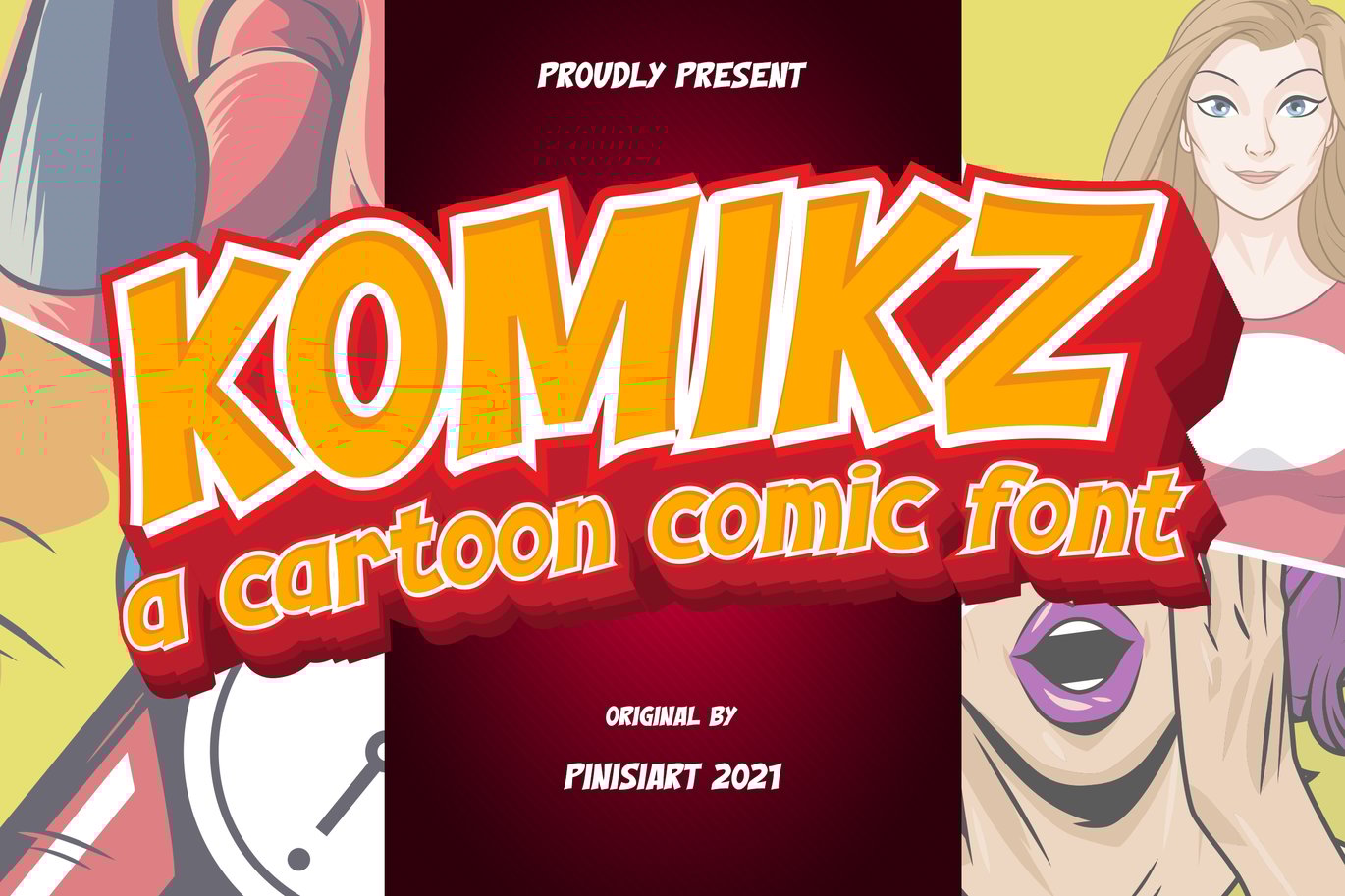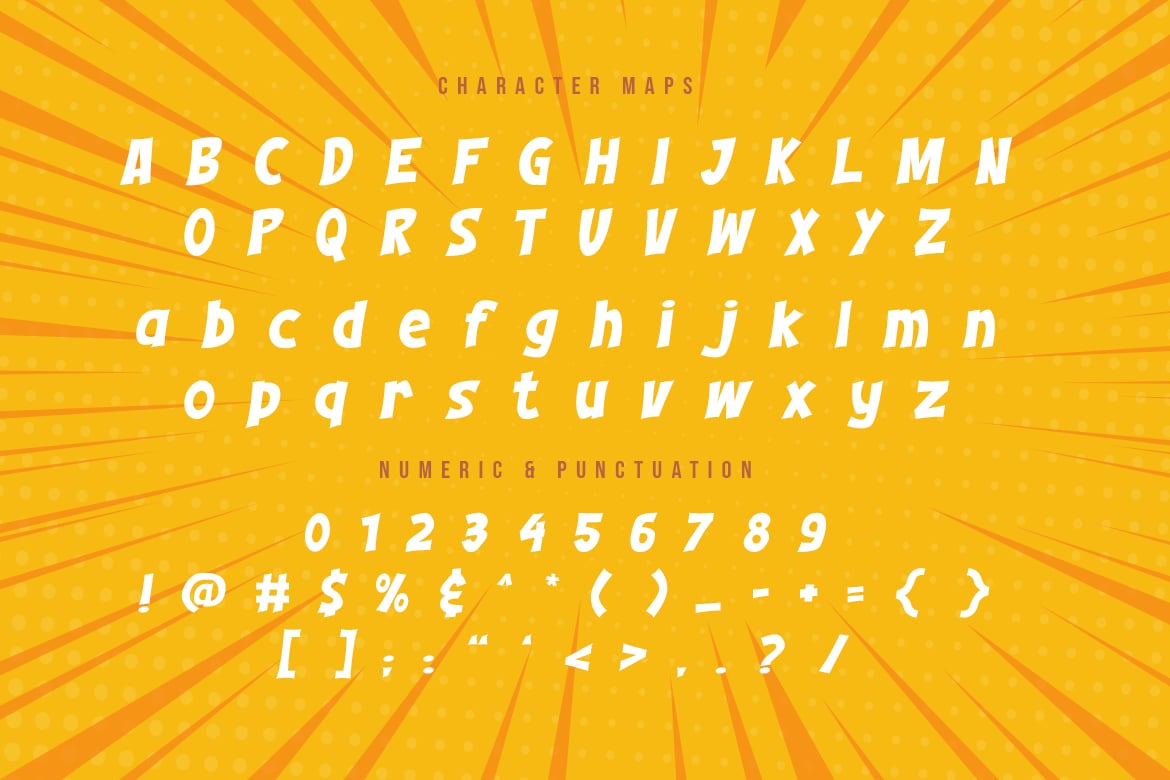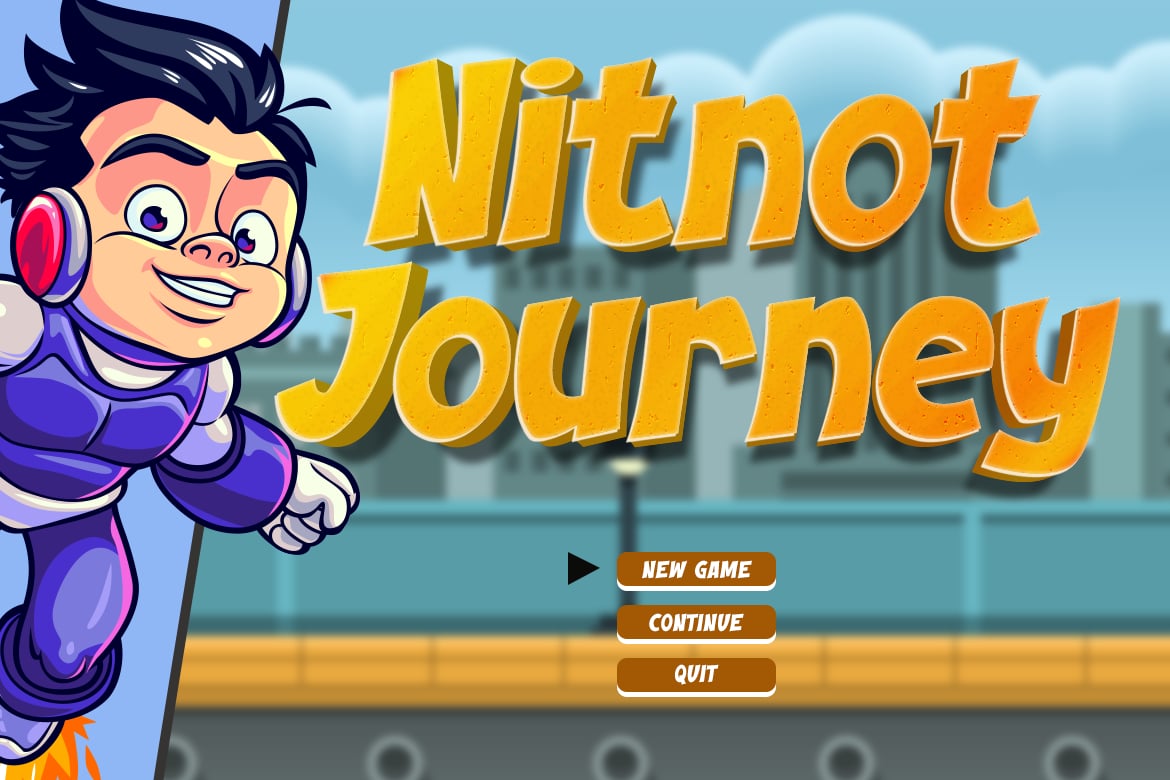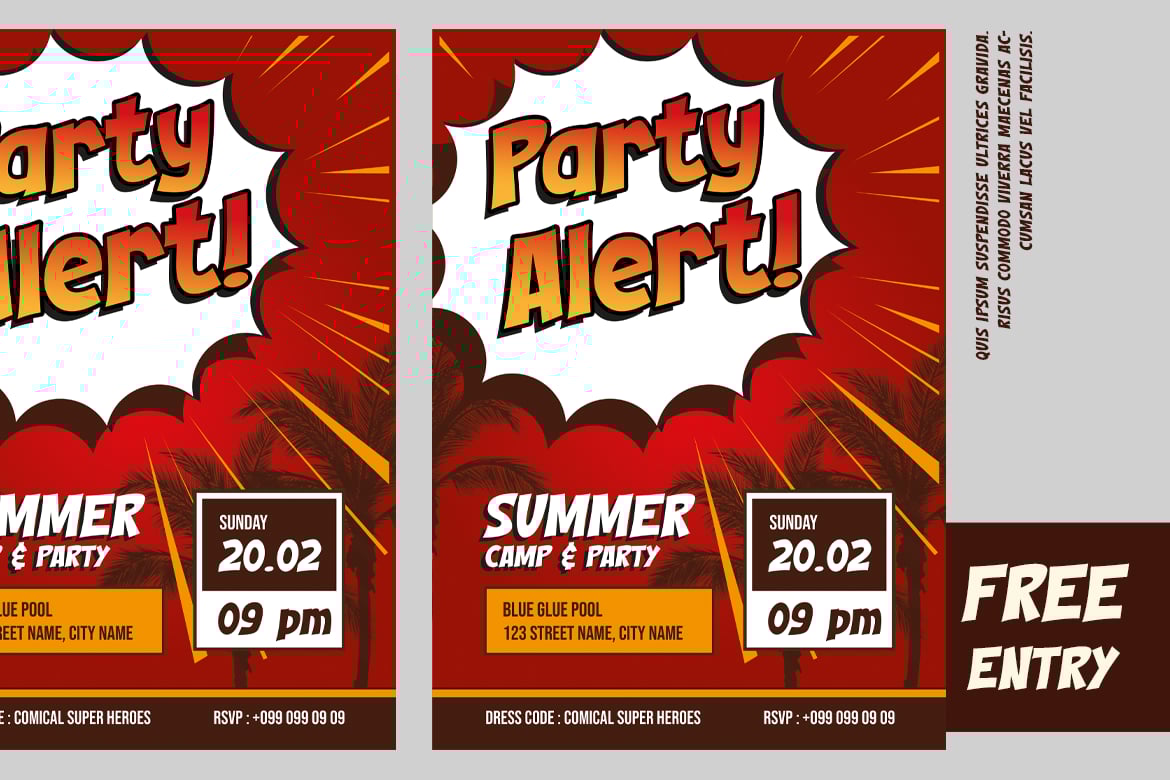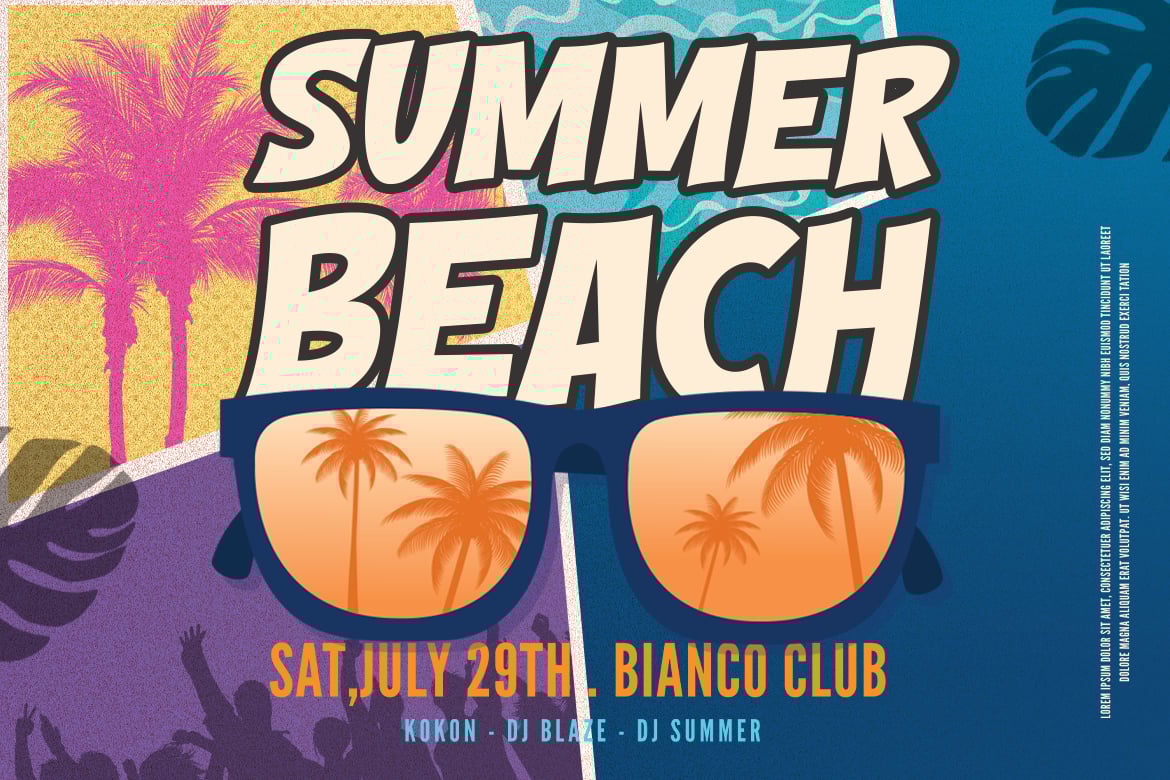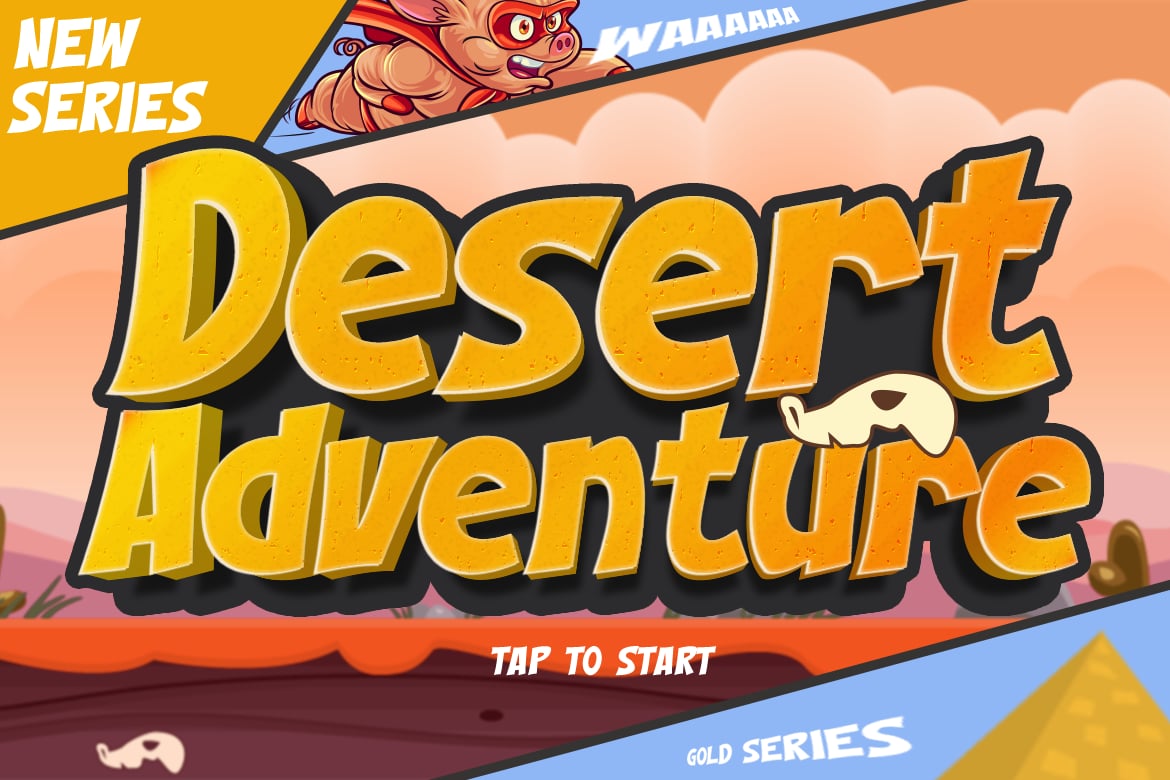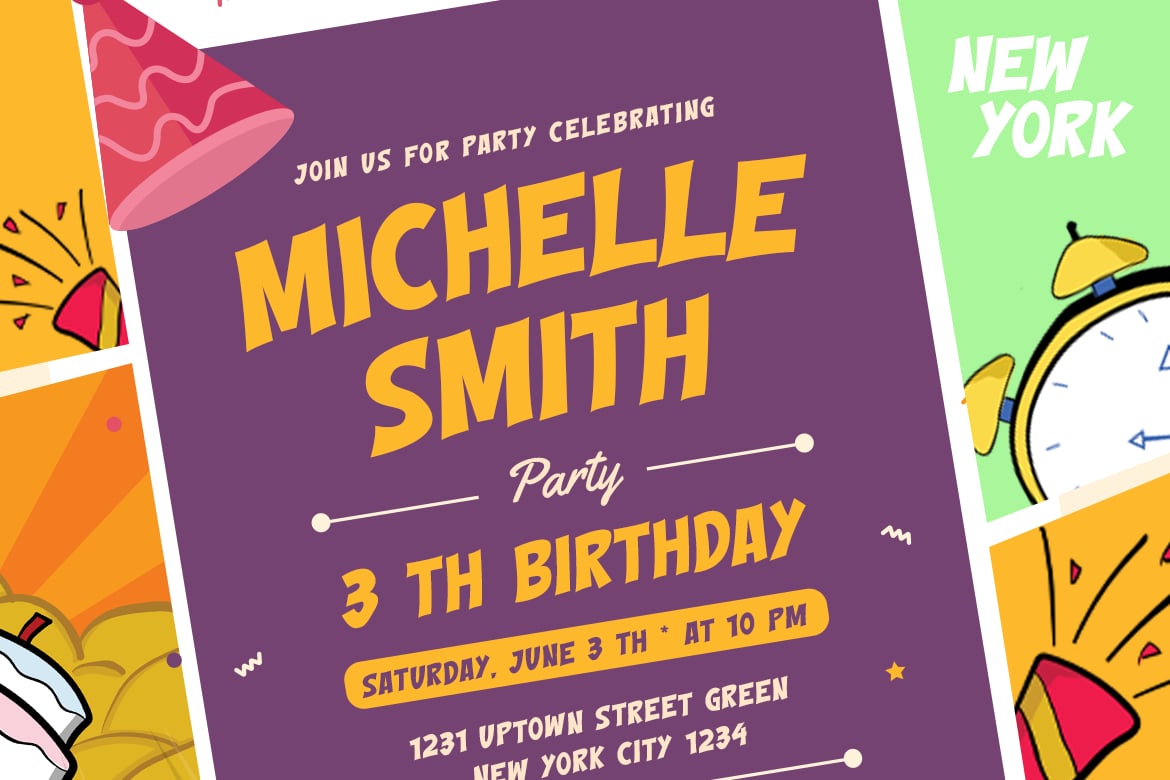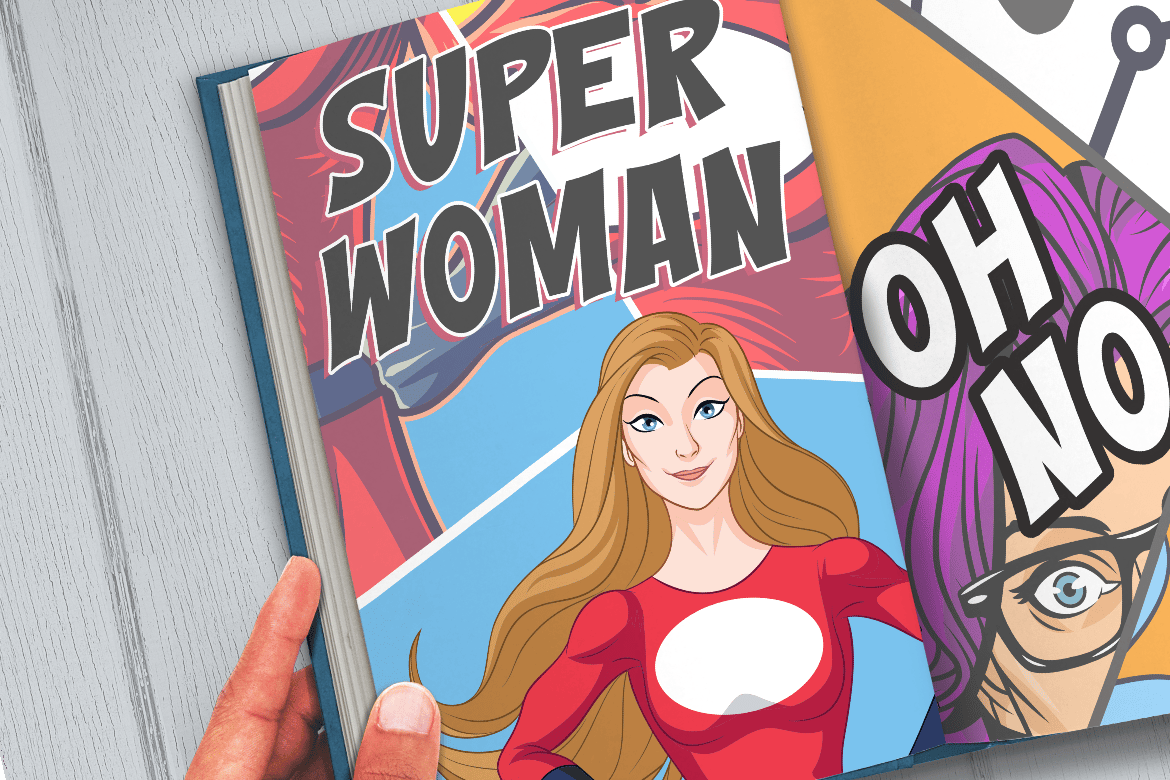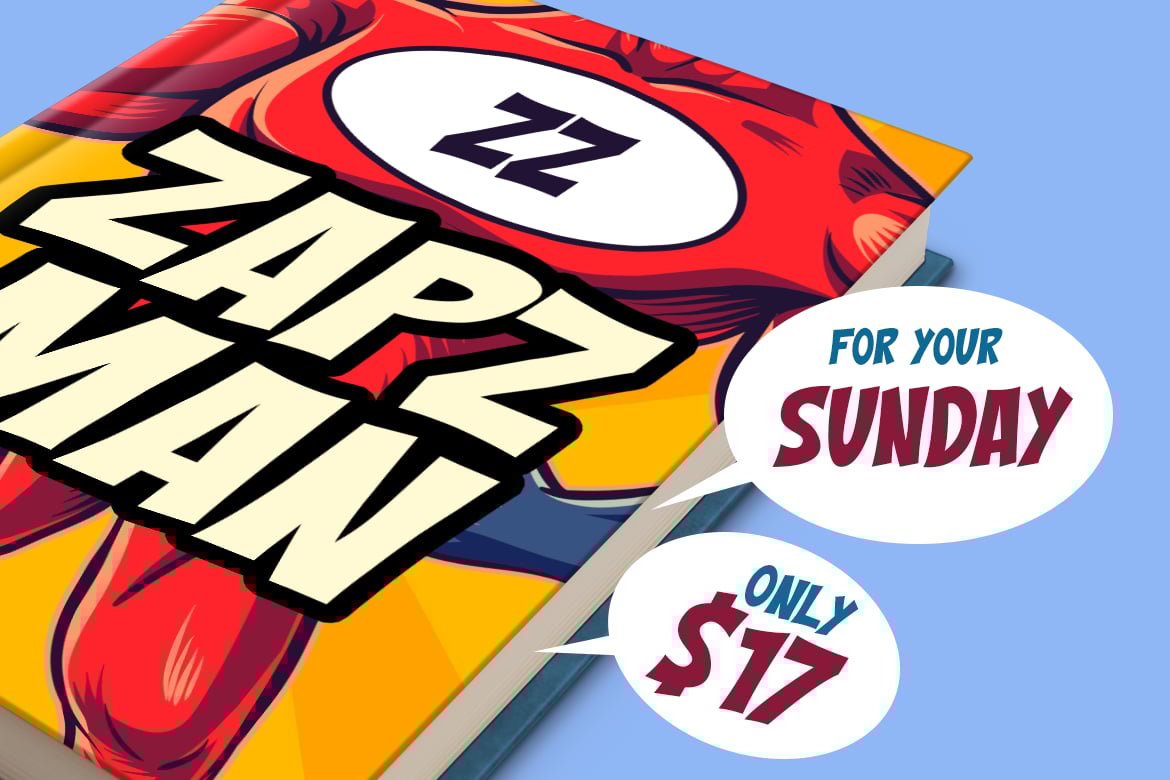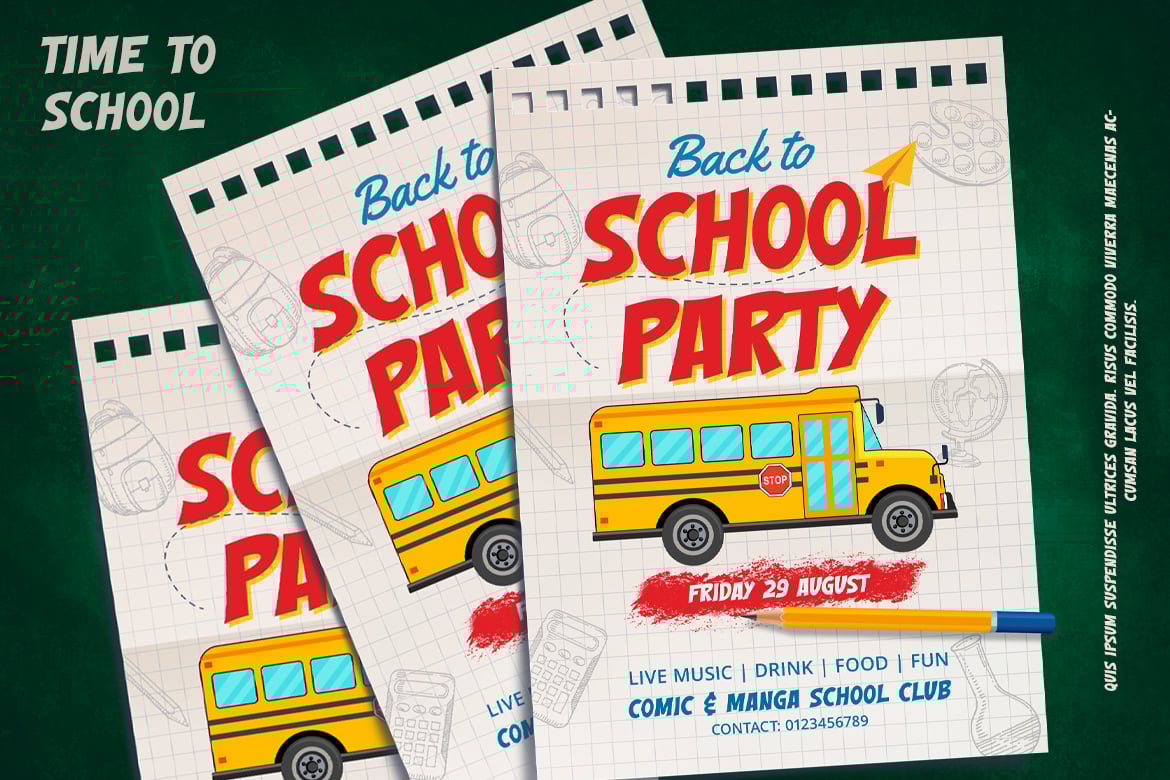
KOMIKZ – cartoon font
KOMIKZ- cartoon font
It speak for itself. KOMIKZ bring the classic comic feel on the word written.
Suit perfectly for Online Games, poster, movie title, fast food menu, magazine, youtube covers, youtube thumbnails, social media page covers and so on…